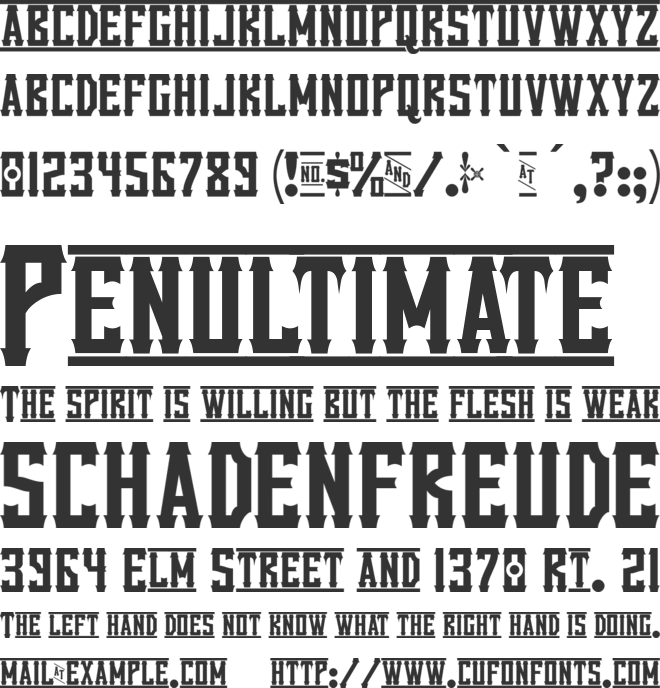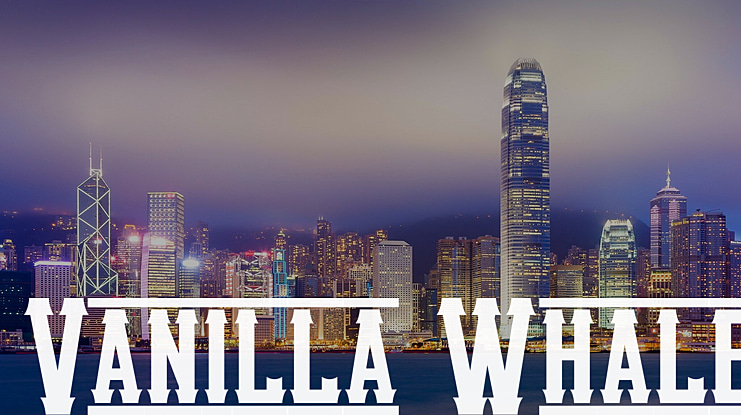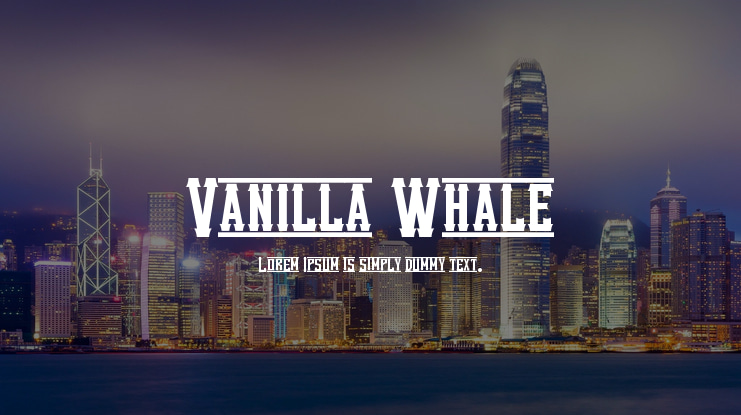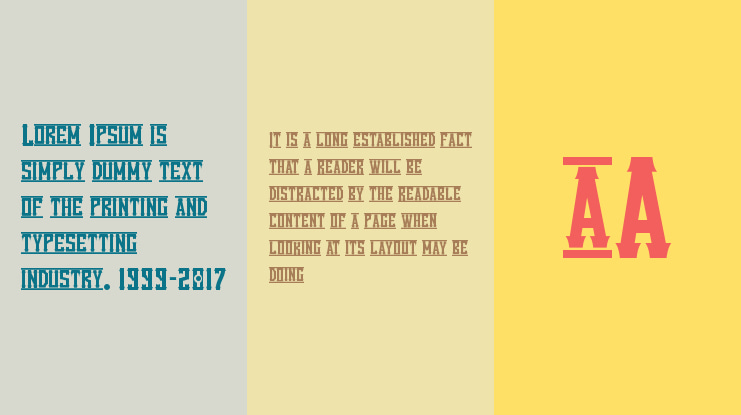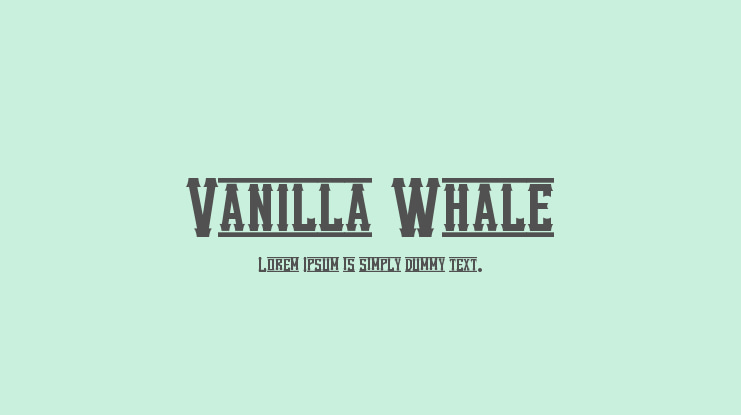
Vanilla Whale Font
Ray Larabie
Note of the author Vanilla Whale is not a cowboy font. Even if you think it’s a cowboy font it is definitely not one of those. Why would you even think that? TrY PuttinG CapitalS at ThE BeginninG AnD EnD of EacH WorD.